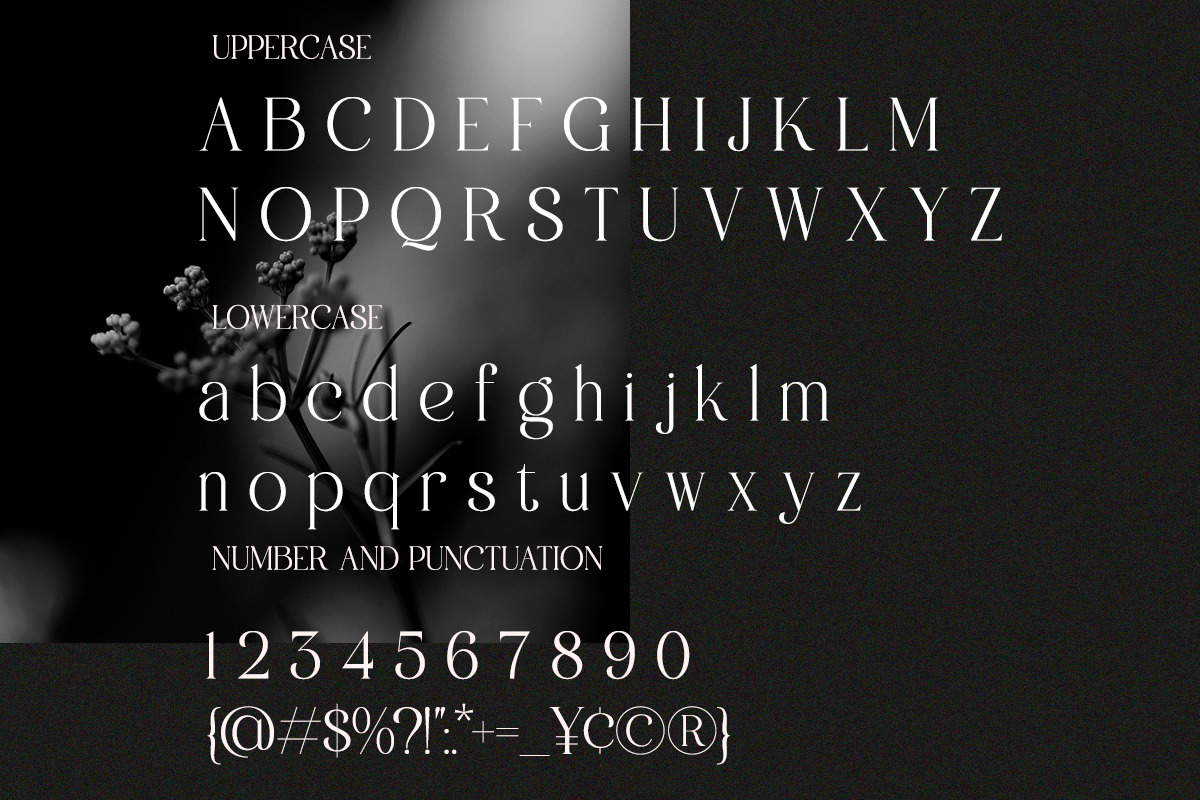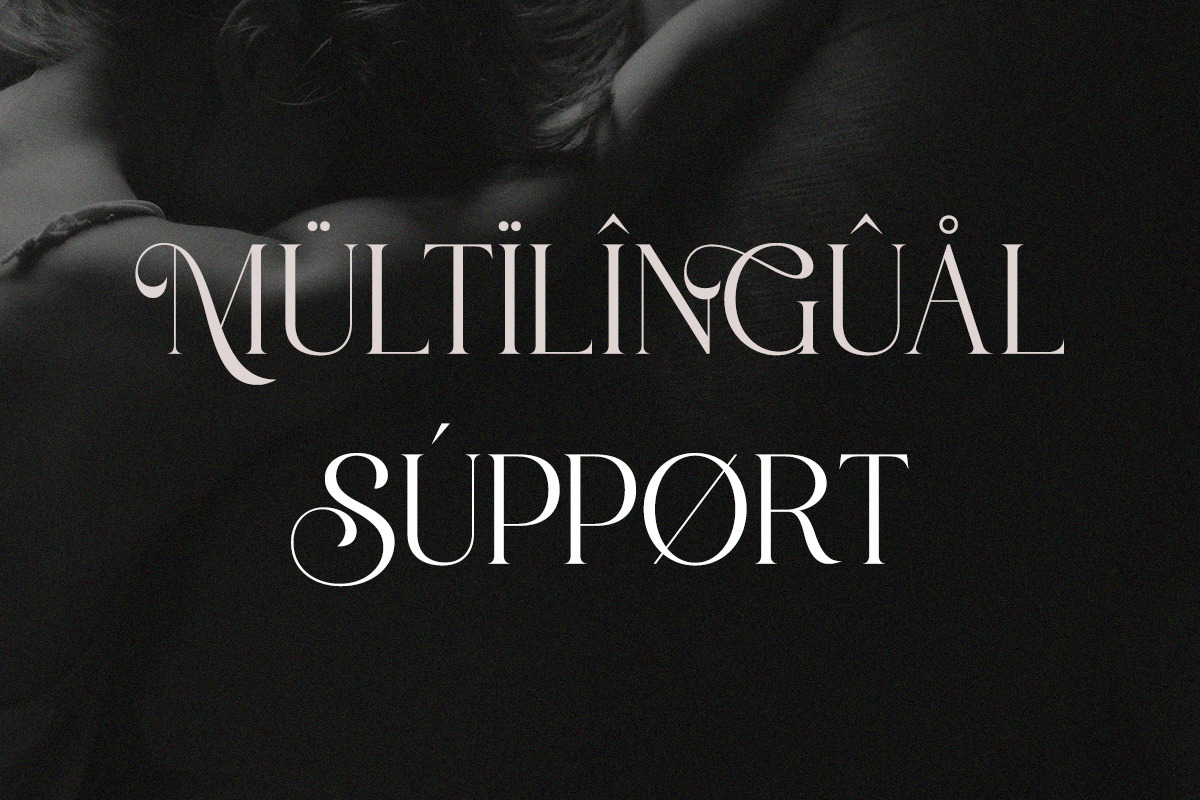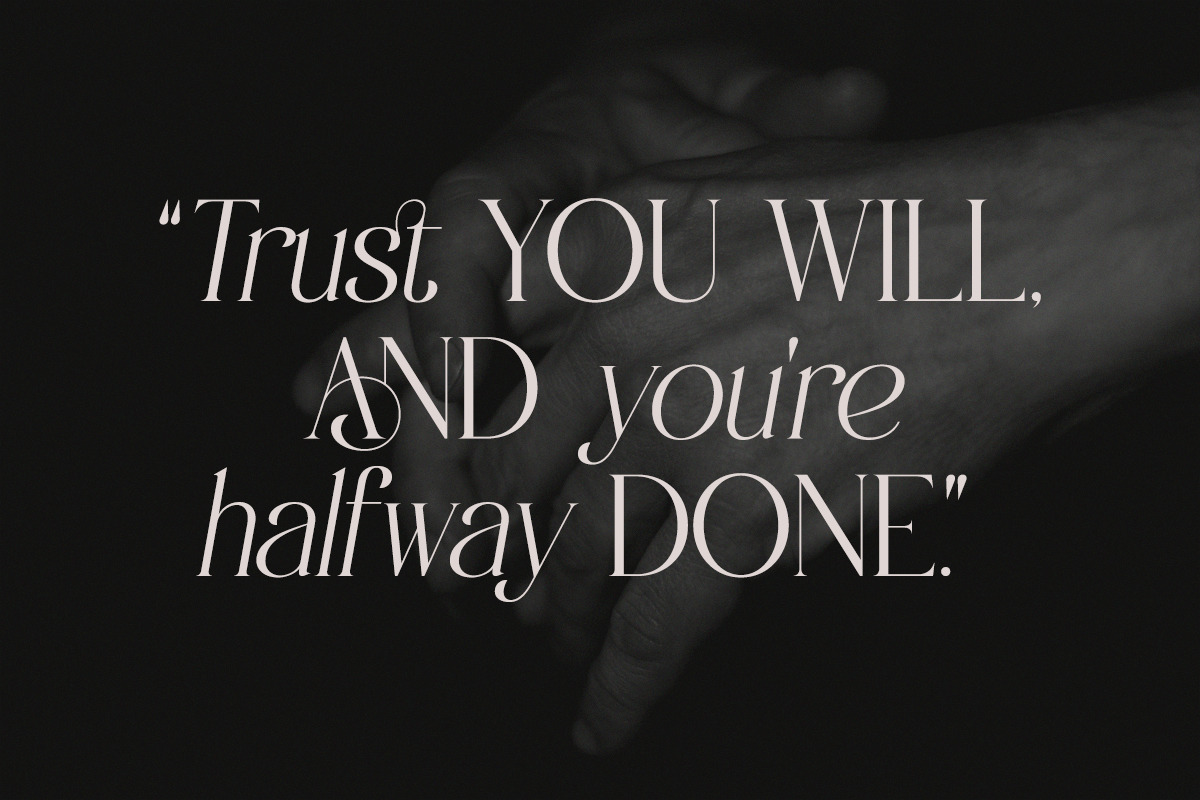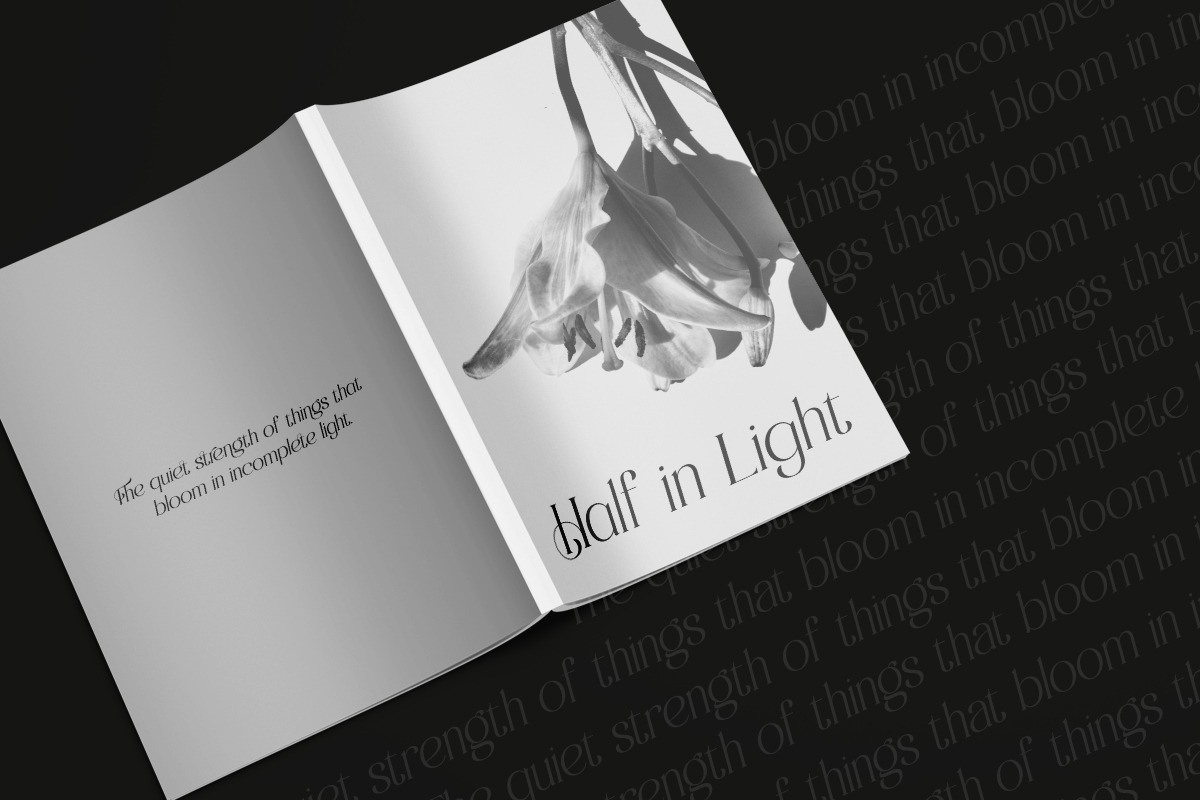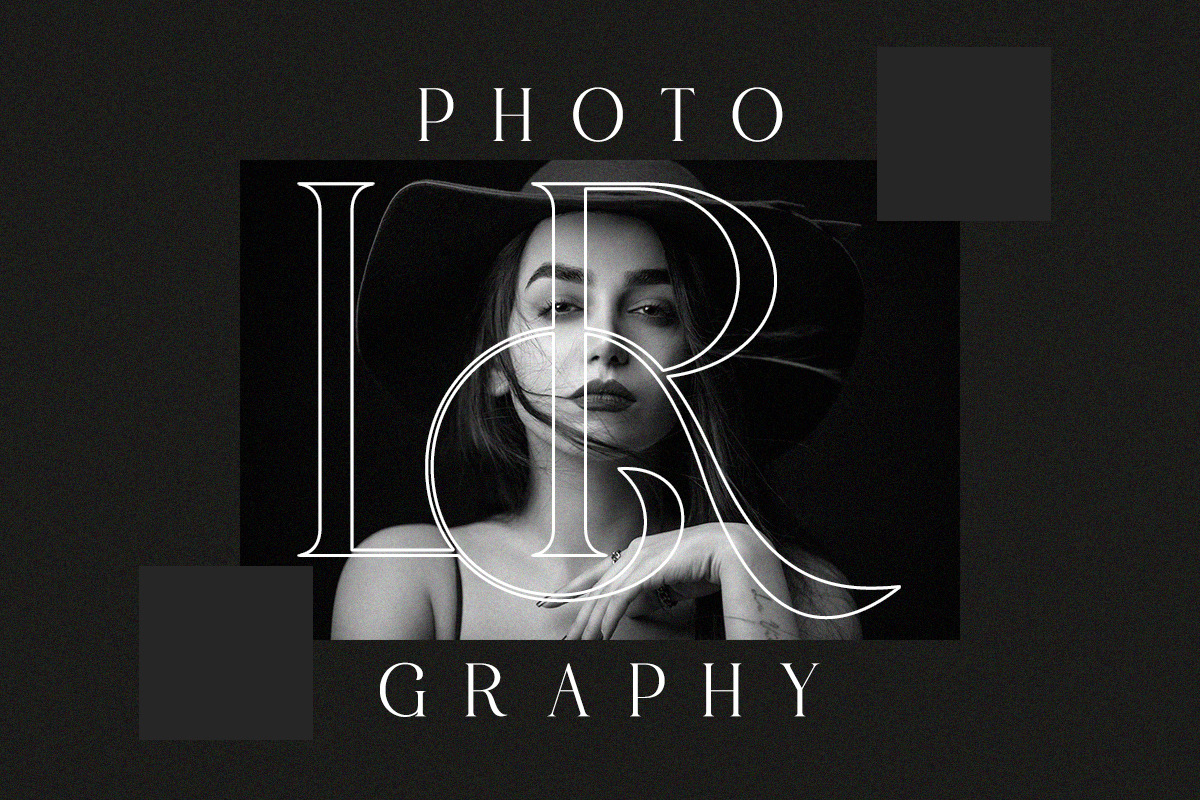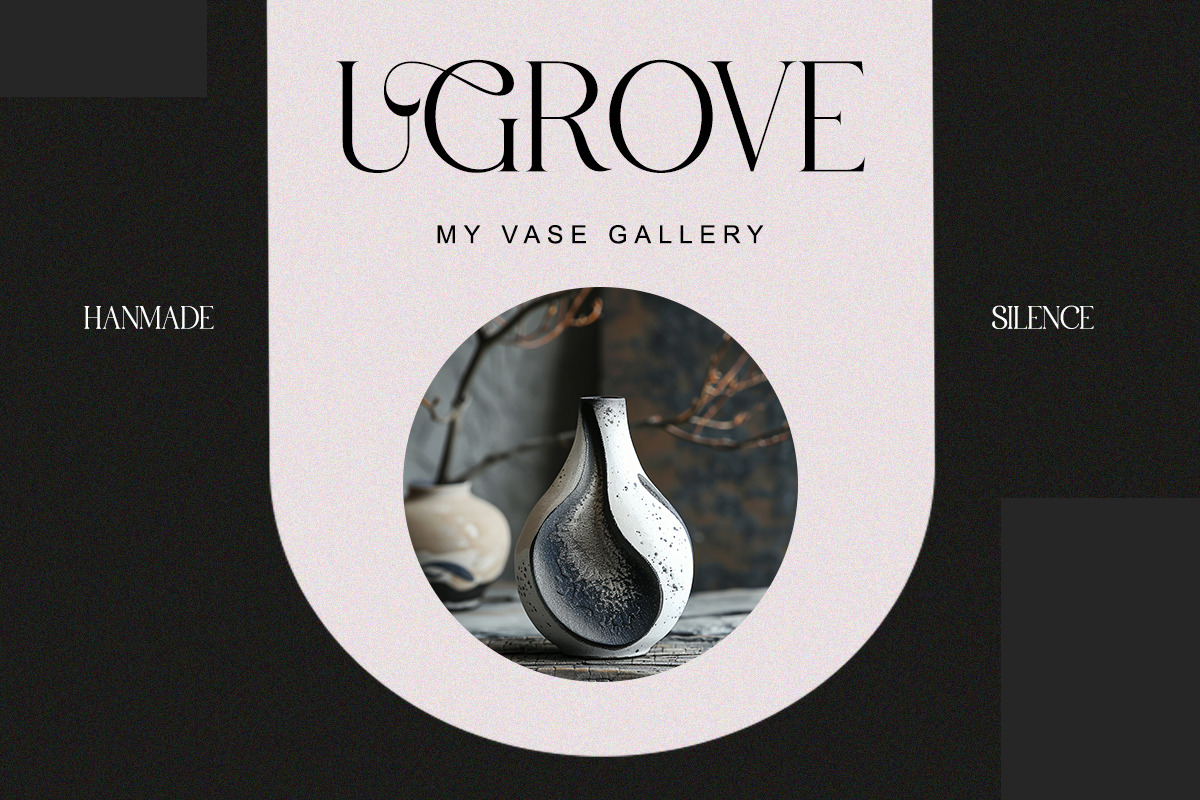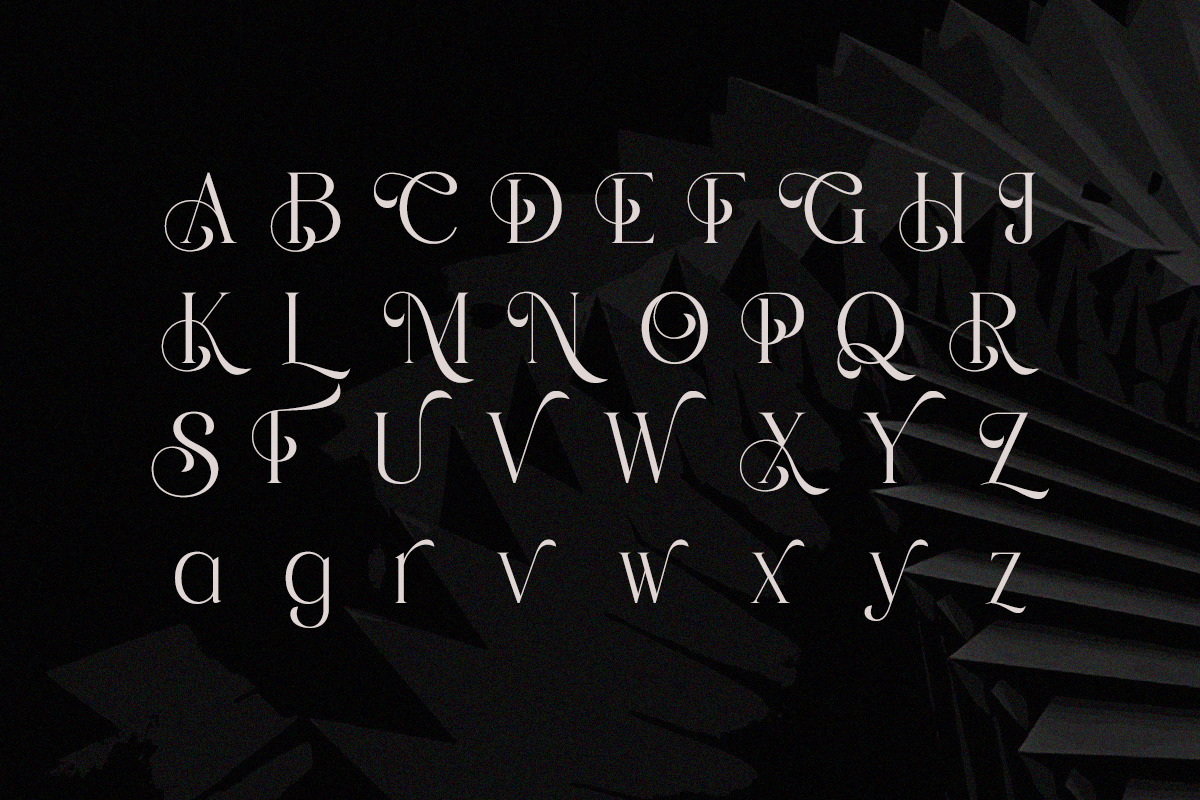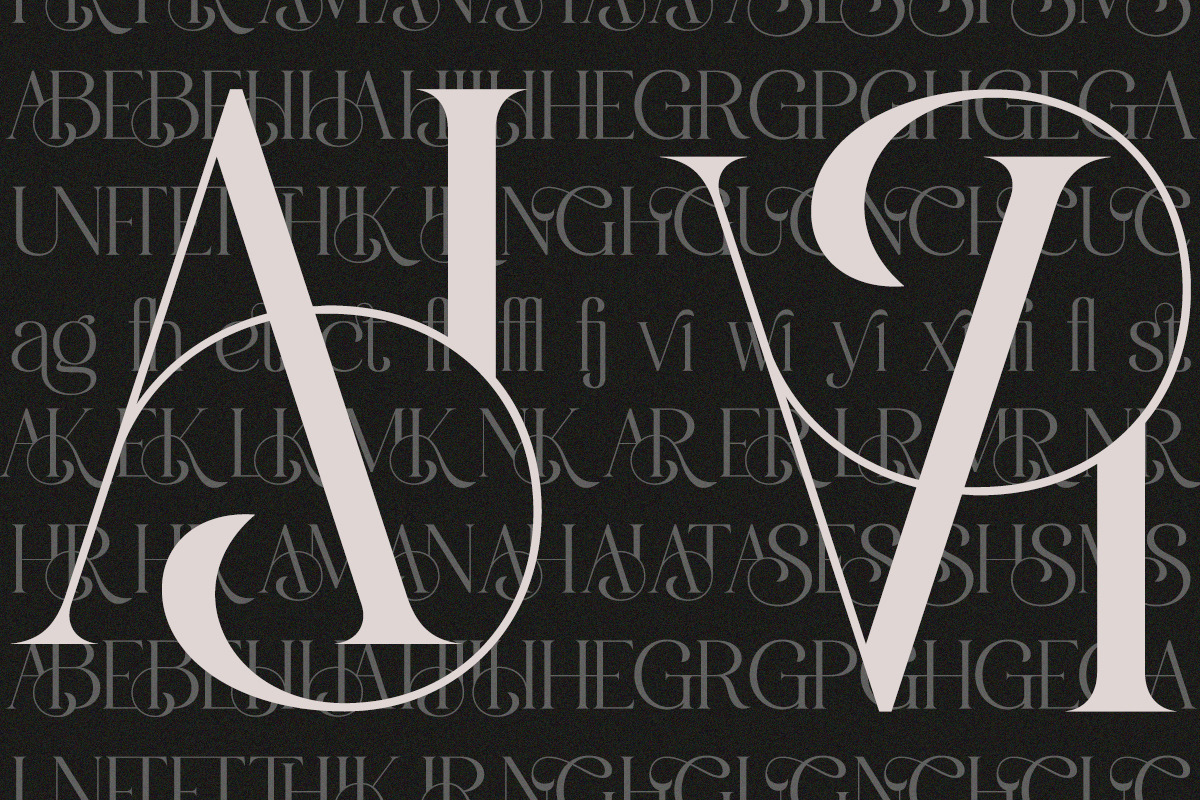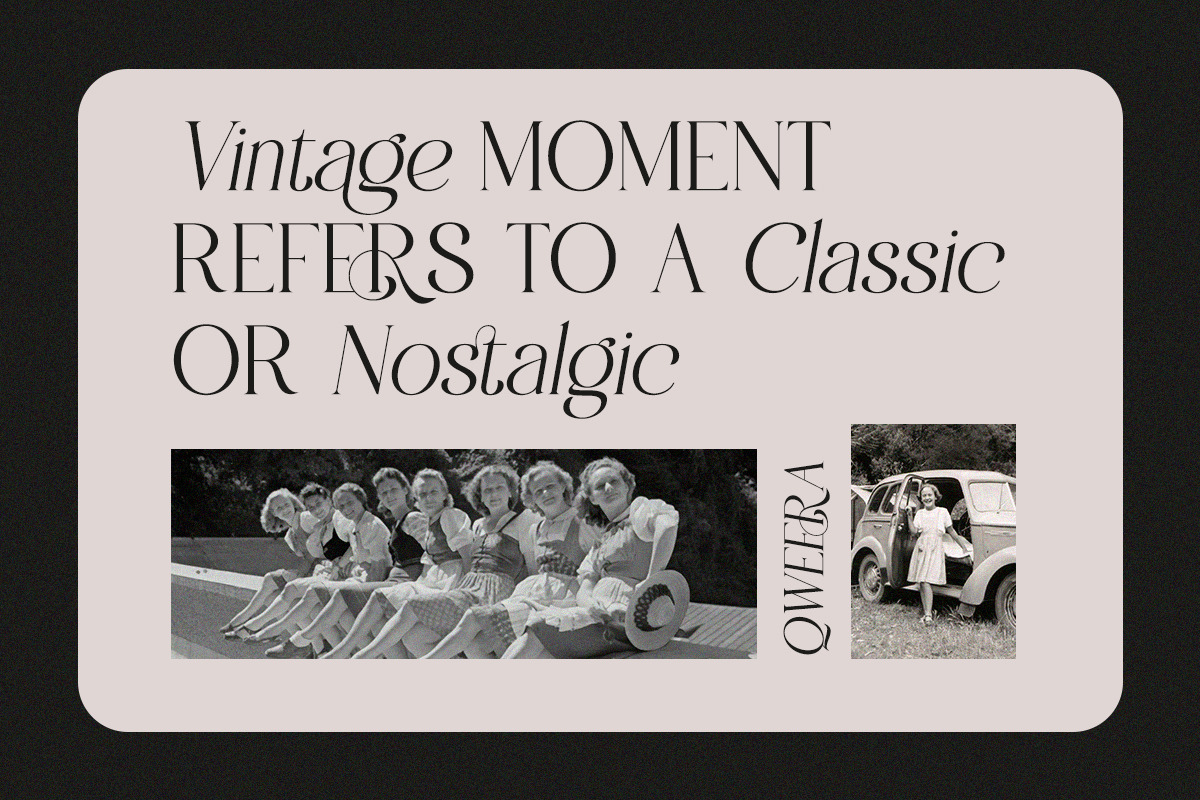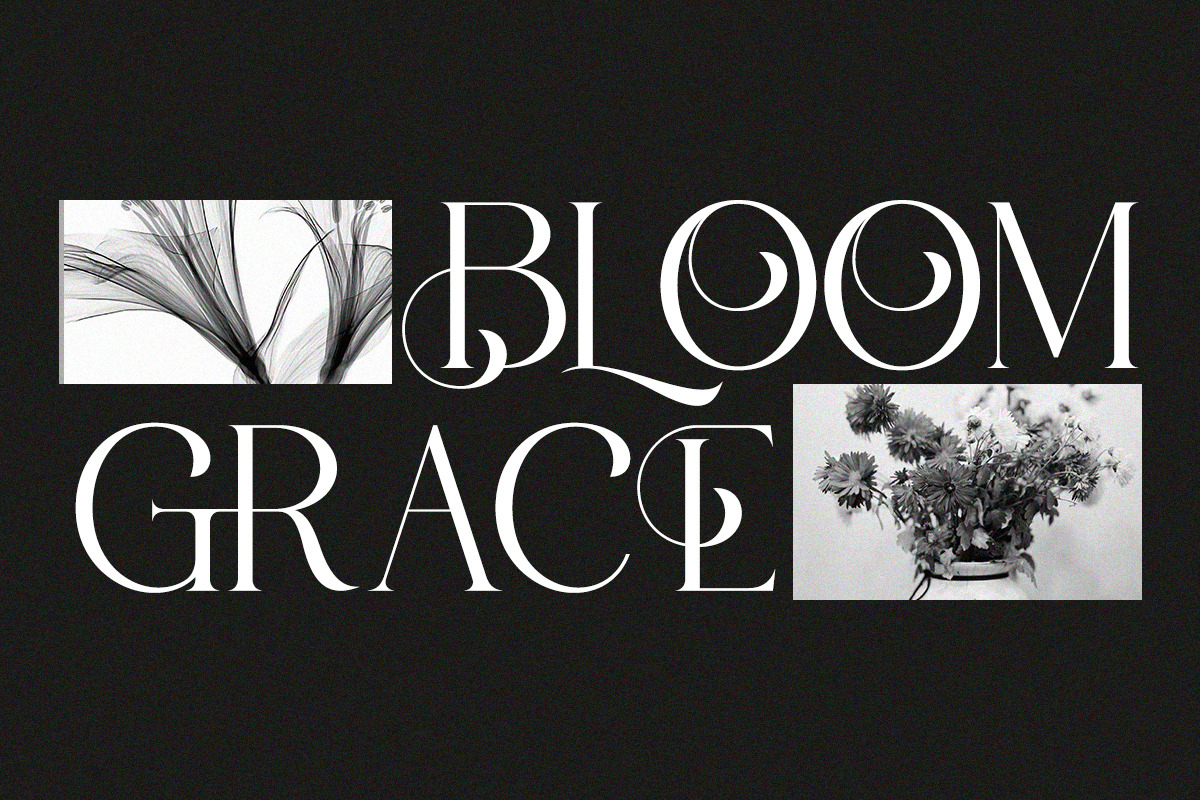
Augvari - Modern Luxury Serif
Augvari is a bold and luxurious serif typeface crafted with refined ligatures and stylish alternates.
Its high-contrast strokes and modern elegance make it perfect for premium branding, editorial headlines, fashion logos, and statement packaging. Augvari delivers a timeless aesthetic that blends luxury with contemporary sophistication—ideal for designers who want to stand out with bold typography choices.
- Modern serif font with stylish ligatures
- Regular & Italic
- Elegant alternates for versatile design
- High-contrast strokes for premium aesthetics
- Luxury fashion branding
- Editorial & magazine headlines
- Classy product packaging
- Stylish logo design
- Wedding stationery & premium invitations
- Minimal yet powerful corporate identity
A serif that speaks bold elegance and modern refinement.